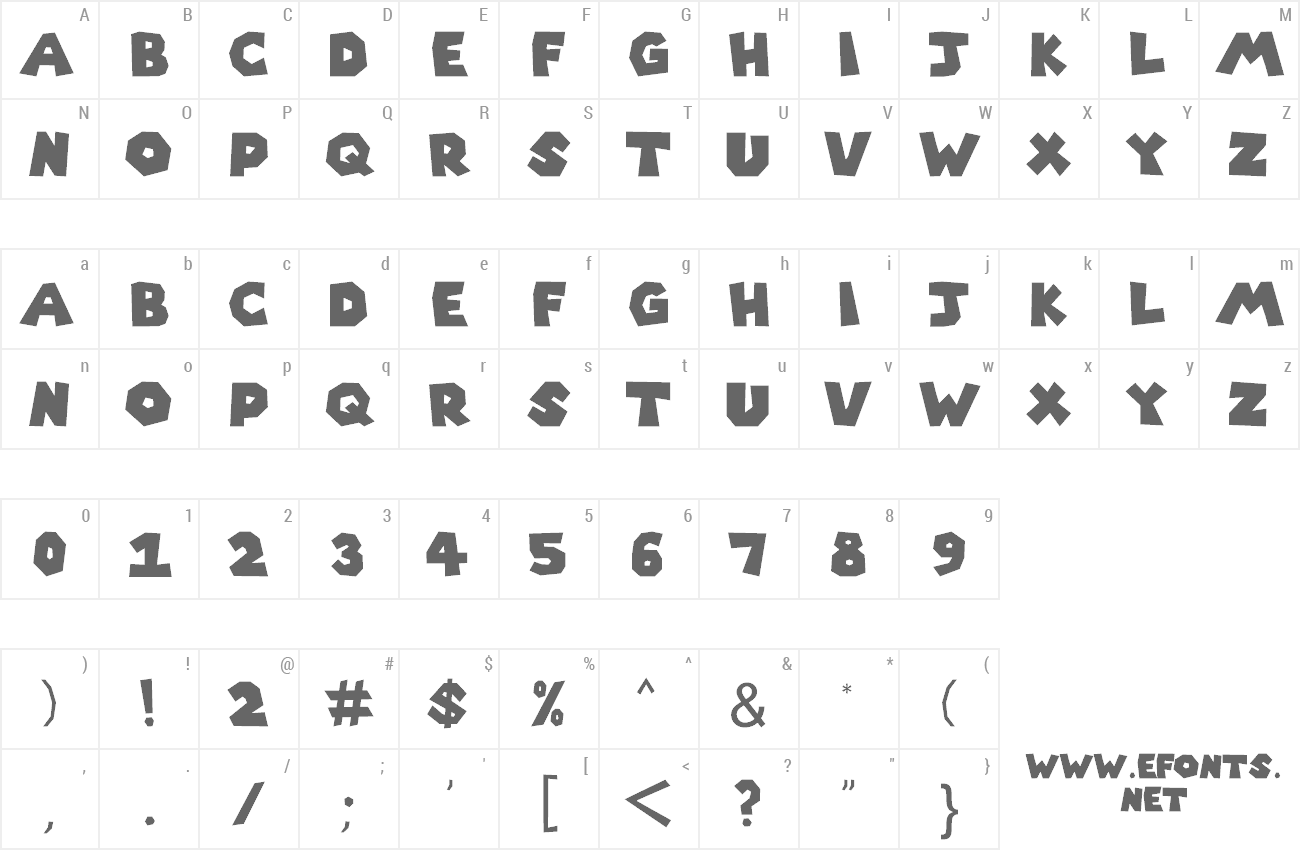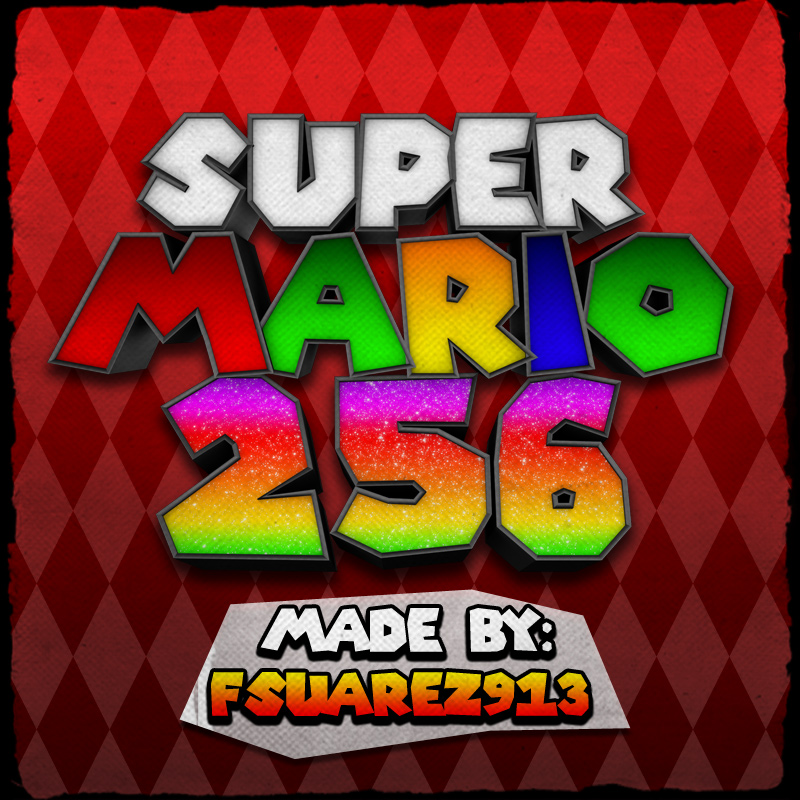
| Font name: | Super Mario 256 |
| Author: | fsuarez913 |
| Note by fsuarez913 | |
| My first font, almost an exact replica of the mario letters. Enjoy! |